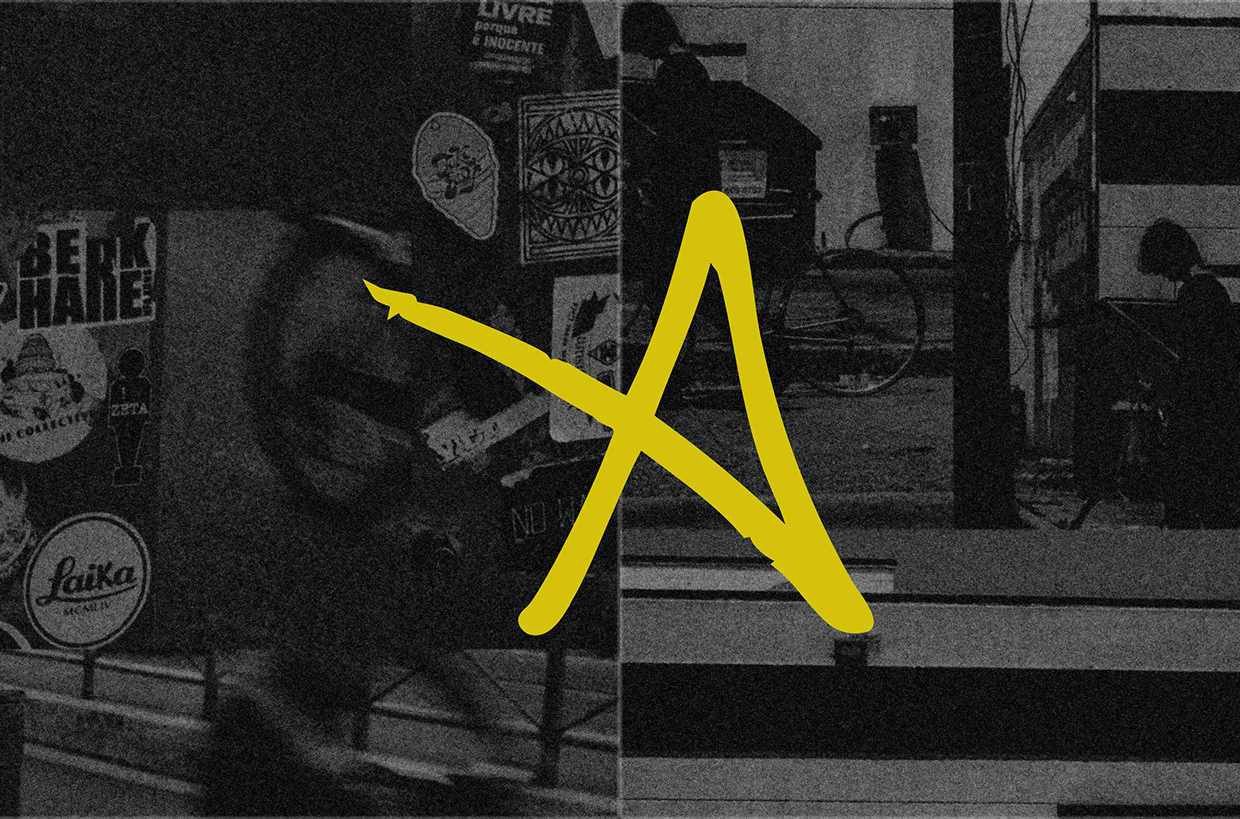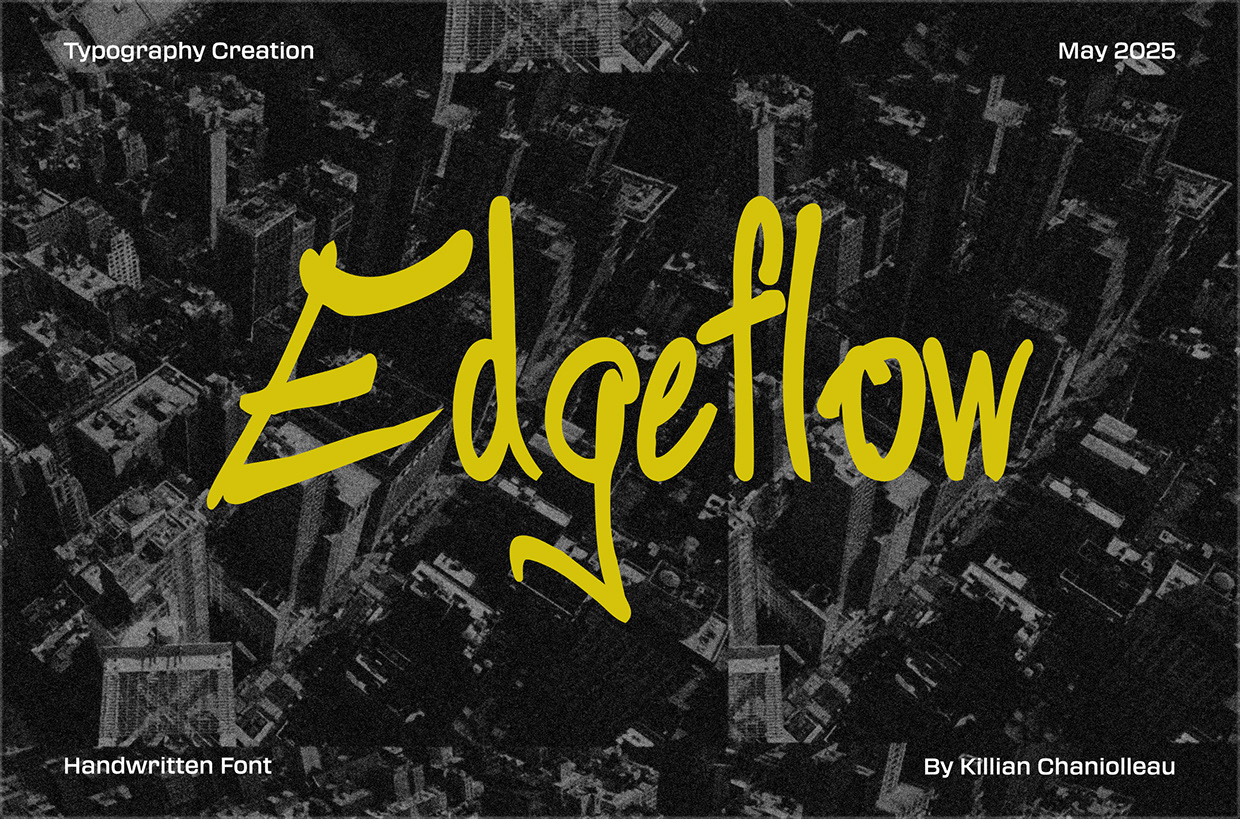
FREE TYPEFACE - Edgeflow
by Killian Chaniolleau · Dec 2025
This typeface was sketched, smudged, and brought to life with the raw energy of the city. Inspired by hand-painted signs, graffiti tags, and the imperfect beauty of urban textures, Edgeflow captures the rhythm of real handwriting, bold, irregular, and unapologetically human.